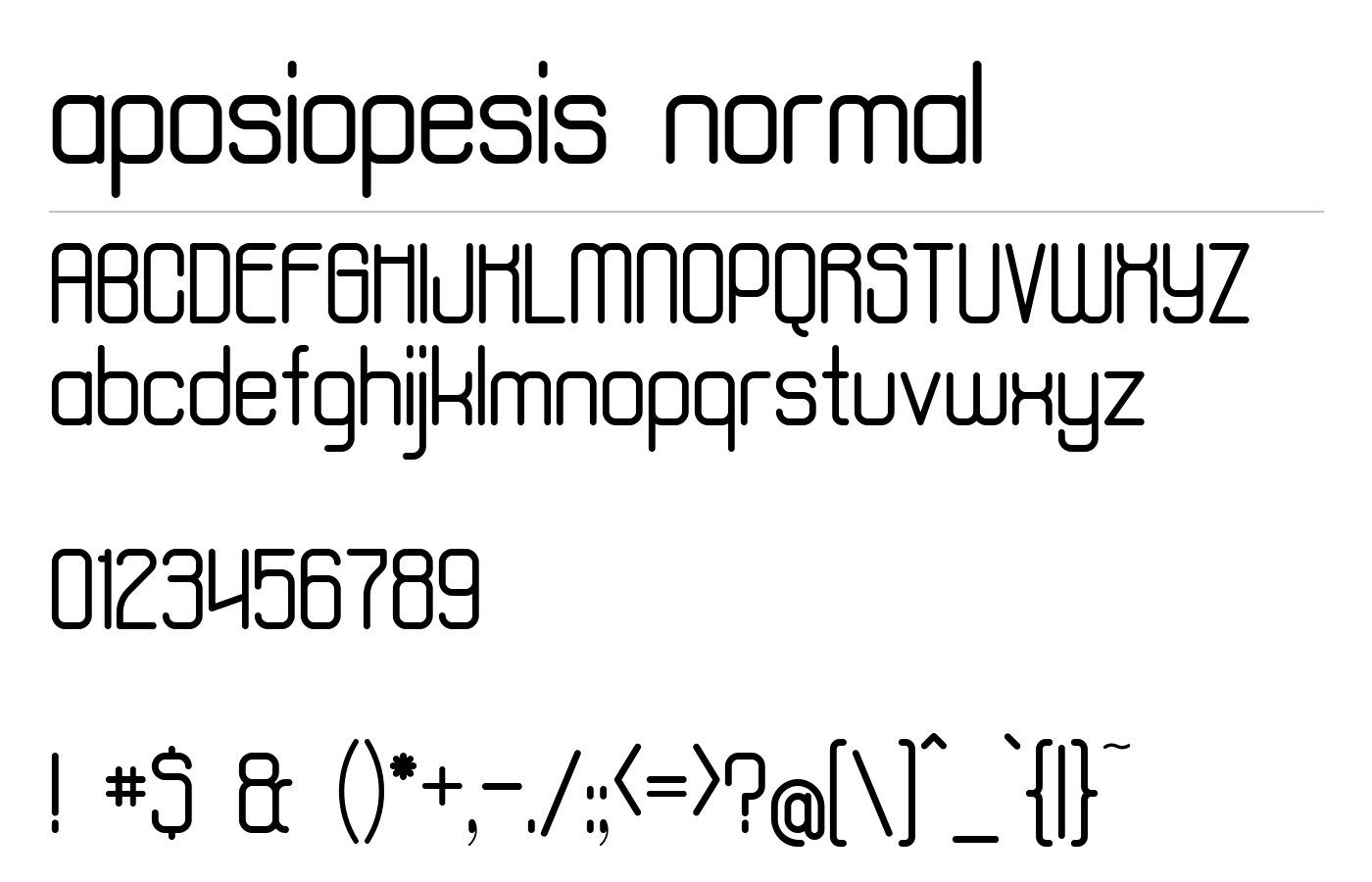
Aposiopesis Normal is a sleek, modern sans-serif font with a narrow, tall structure and rounded corners that create a friendly yet futuristic feel. Its clean lines and consistent stroke weight enhance readability while injecting a playful, tech-inspired energy, making it ideal for branding, digital interfaces, and creative headlines. This font stands out with its unique letterforms that blend geometric precision and warmth, perfect for projects needing a contemporary, approachable style.
aposiopesis normal Font
About aposiopesis normal Font